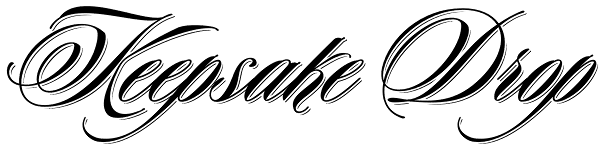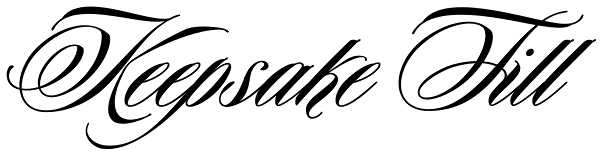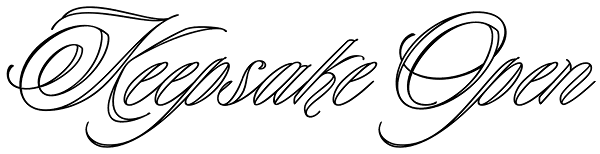
Keepsake
The tattoo script inspired Keepsake™ family has five members that can be combined to provide a range of creative options. Rich with OpenType features including discretionary and contextual alternate characters and ligatures, and other stylistic...